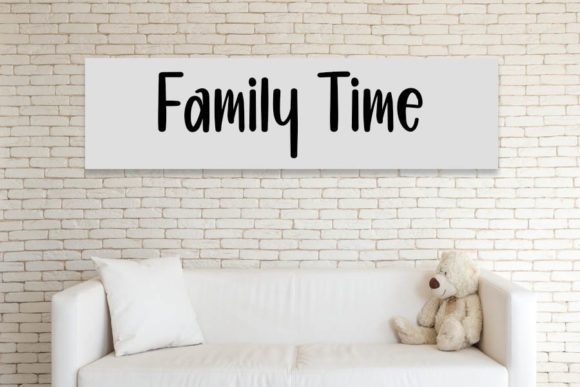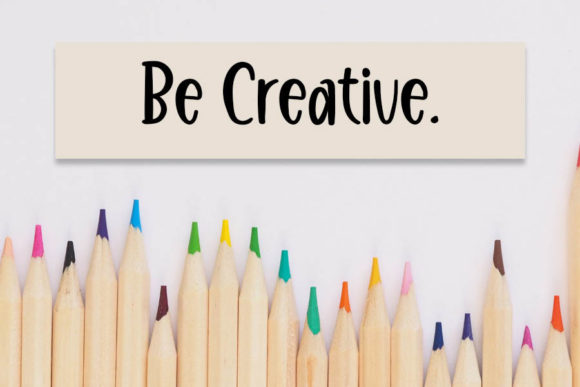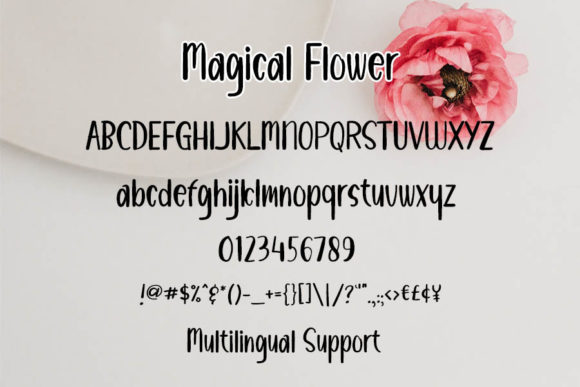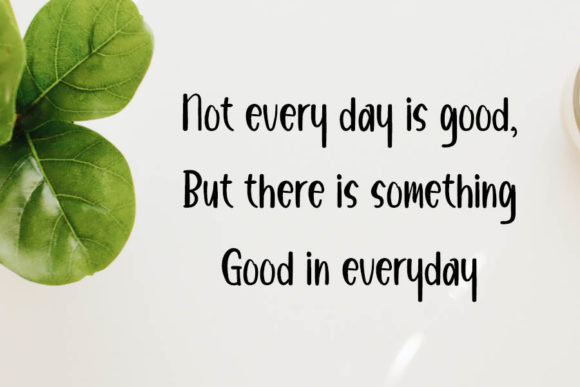
Introduction to Magical Flower Font
Magical Flower is a fun and relaxed font.
Incredibly versatile, this font fits a wide pool of designs, elevating them to the highest levels Add it to your favorite creative ideas and notice how it makes them come alive.
Key Features of Magical Flower Font